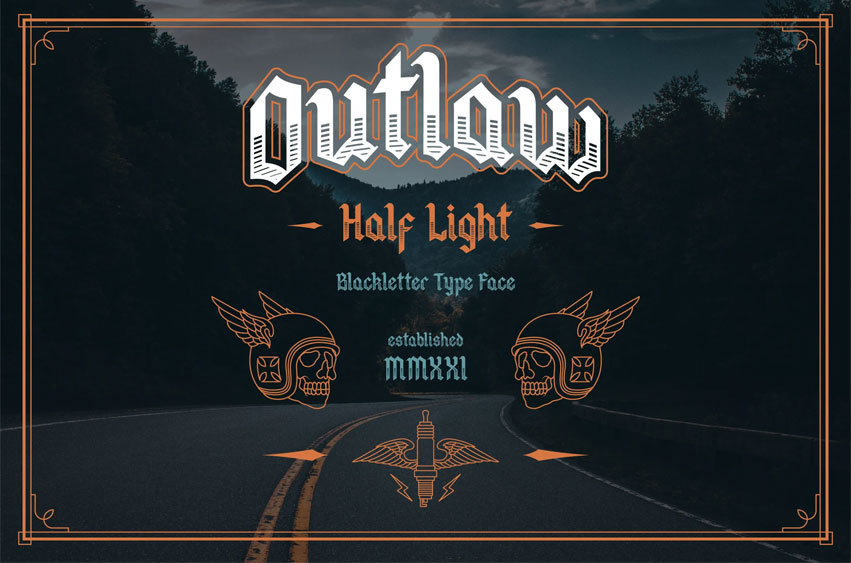
Outlaw Half-Light Font
Outlaw Half-Light Font Blackletter Type Face very fit with your motorbike club logo, or any other vintage or retro design.
Every letter has a unique and beautiful touch, which will make your design come alive!